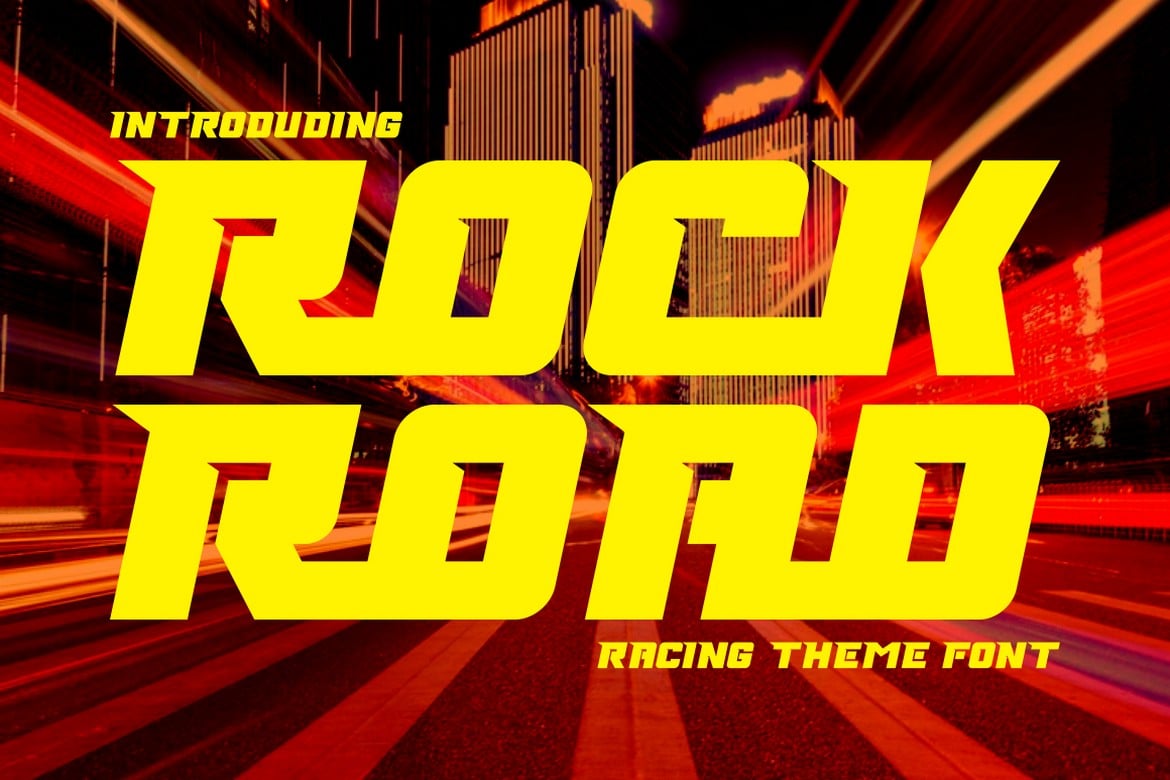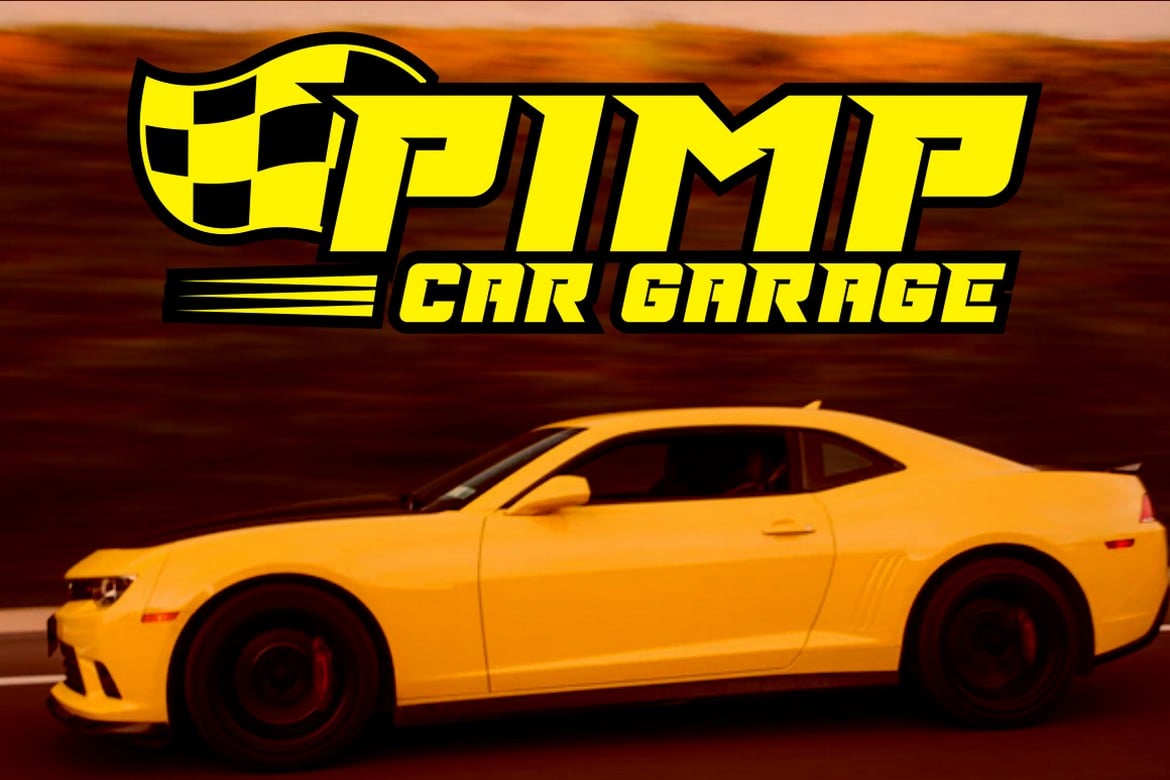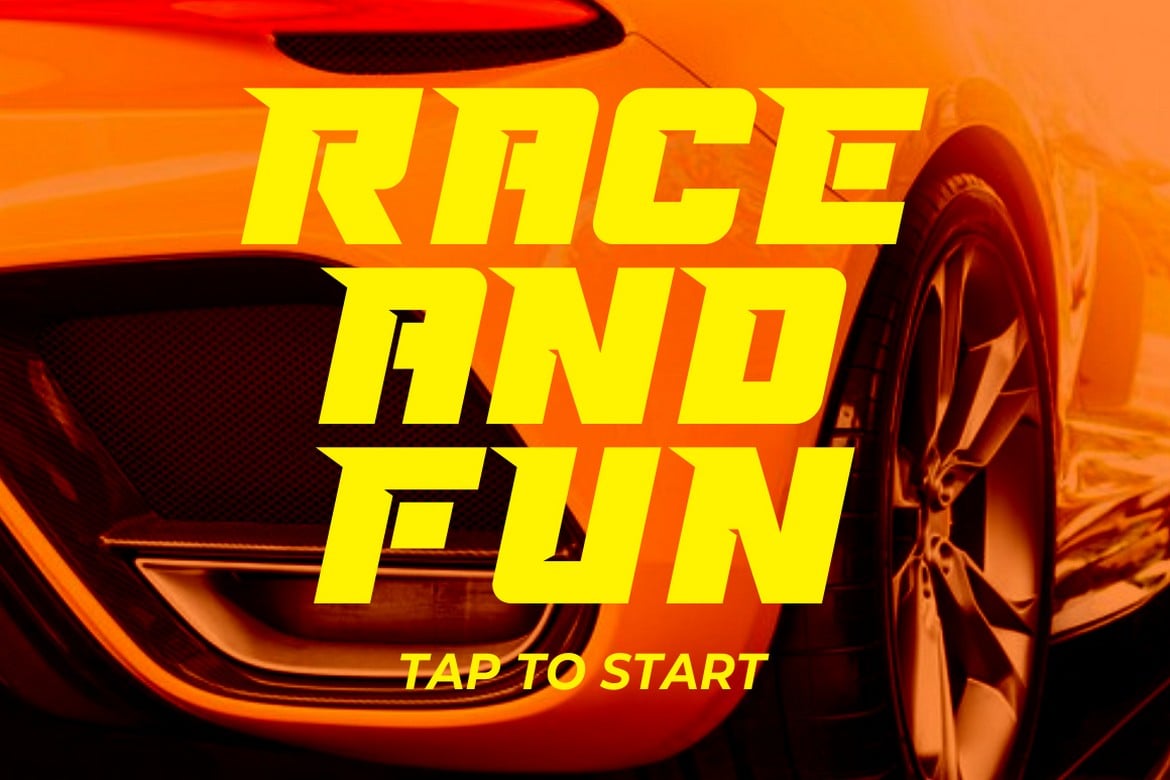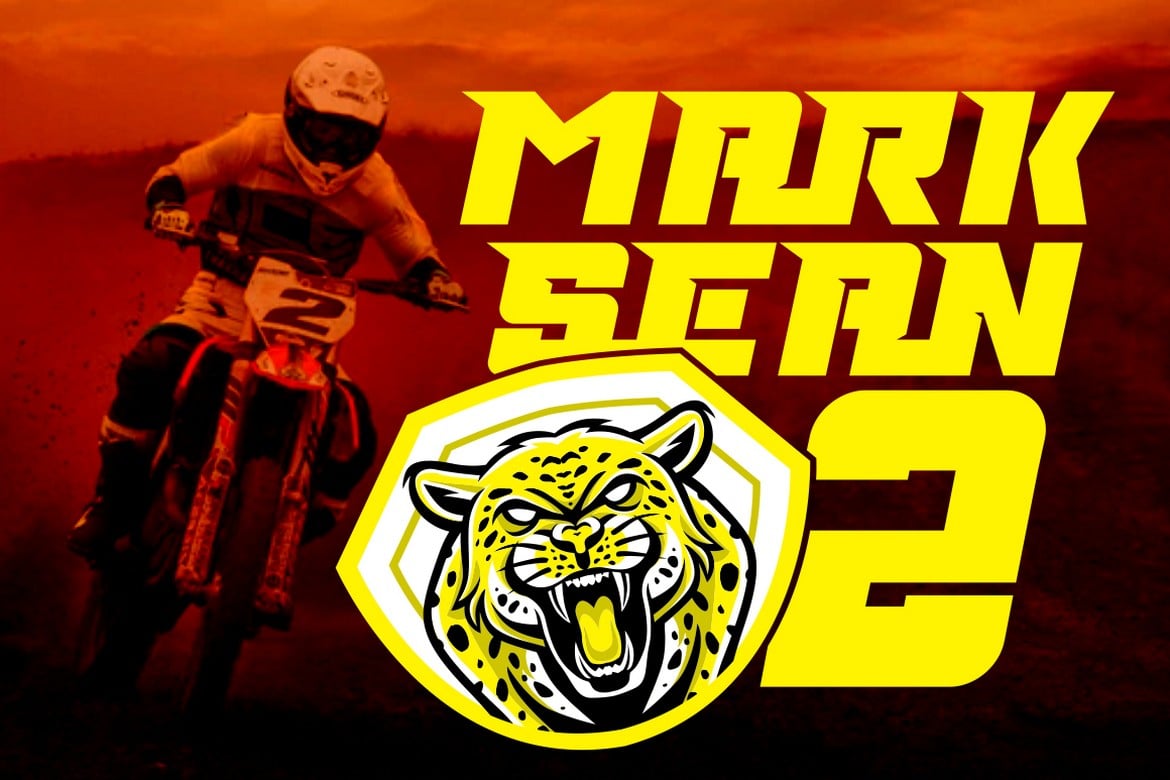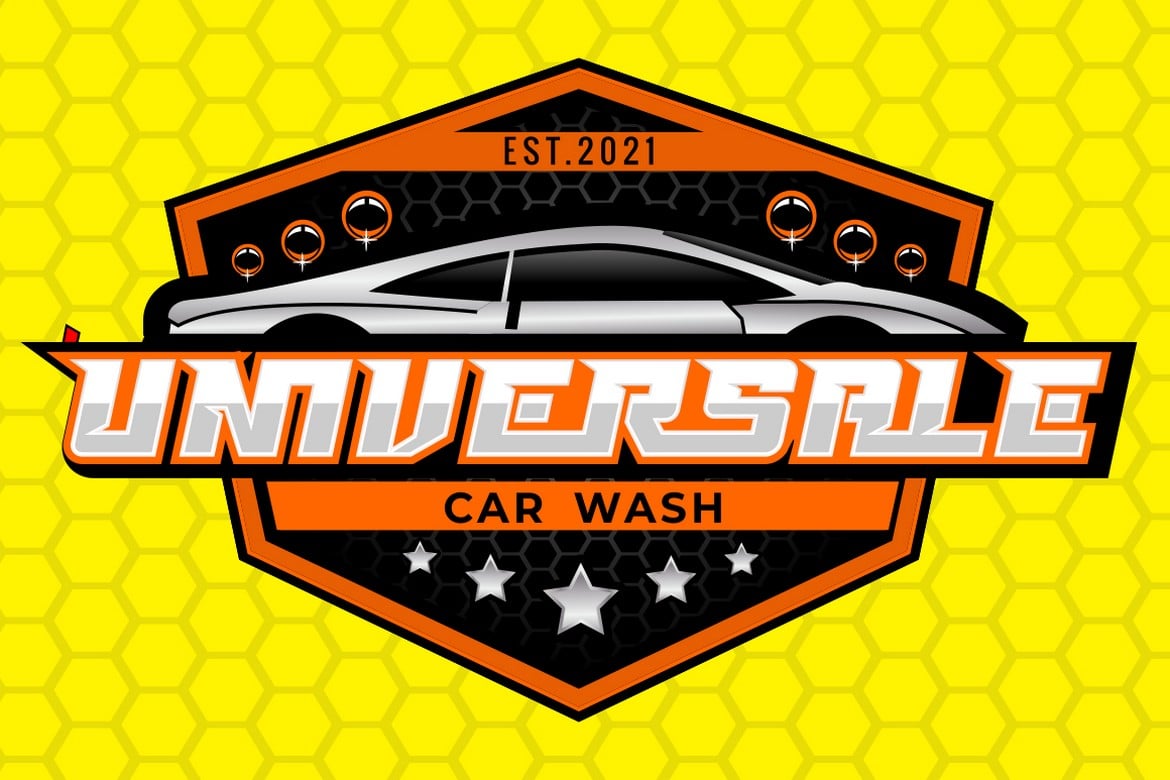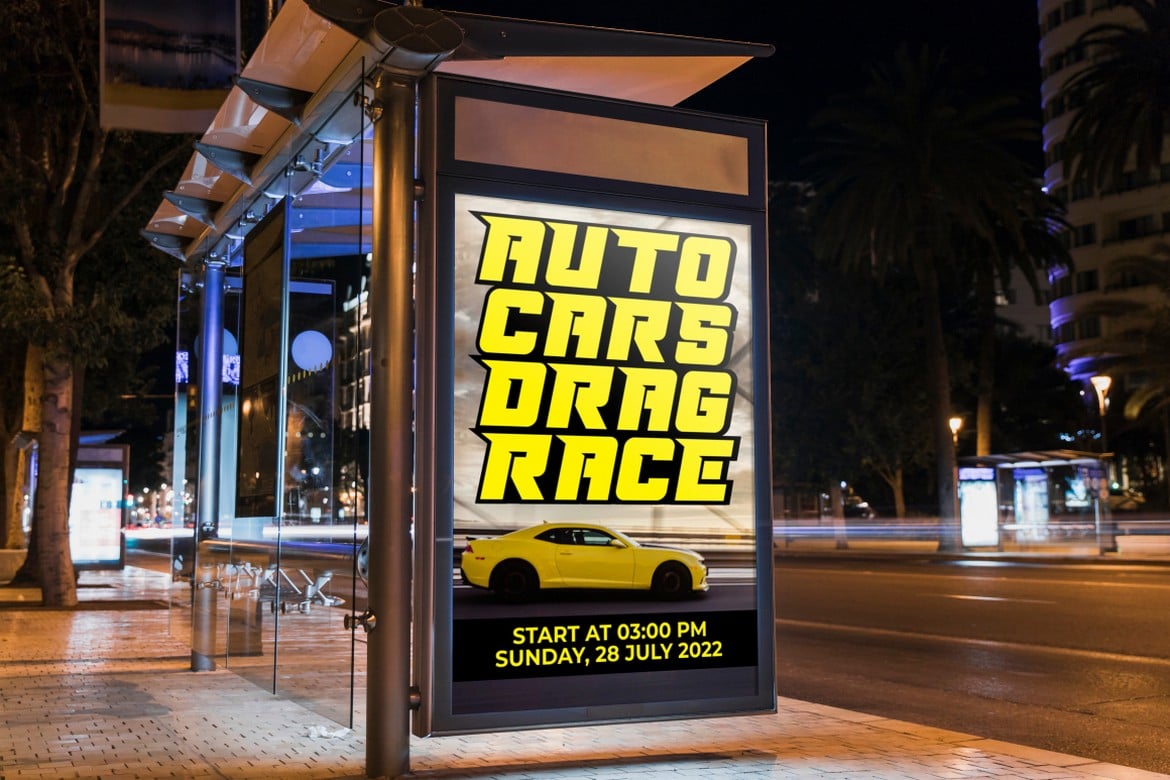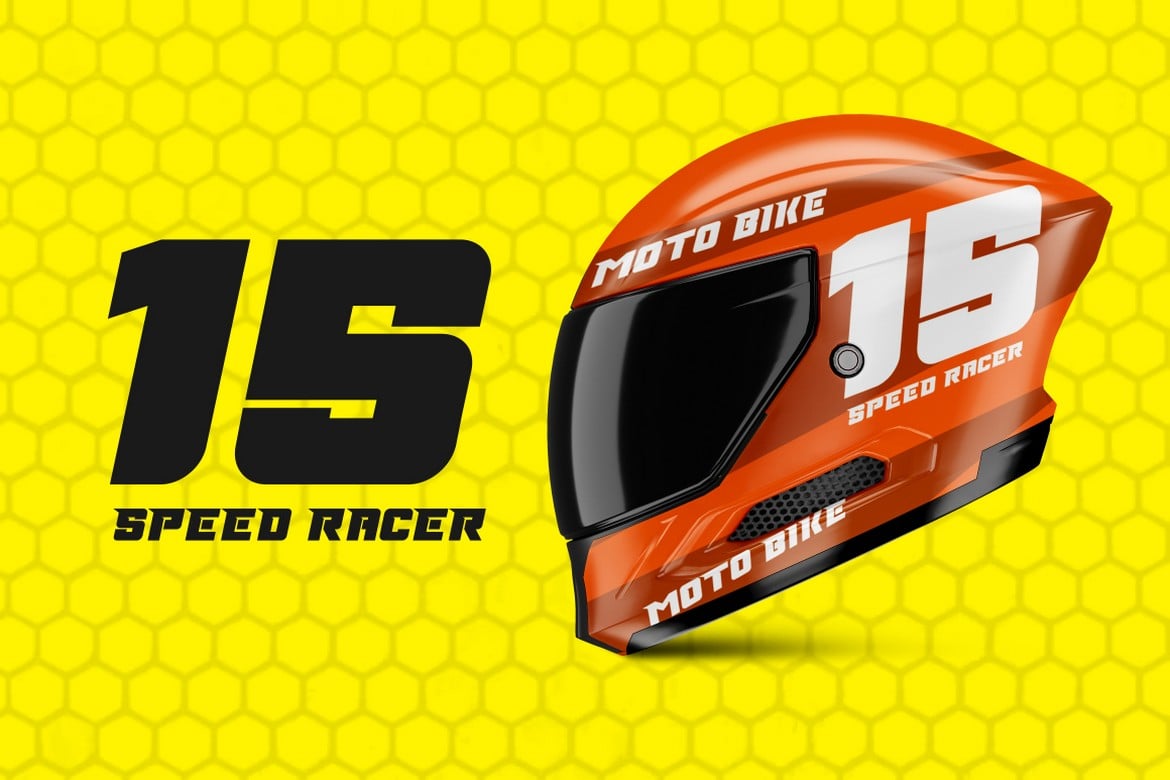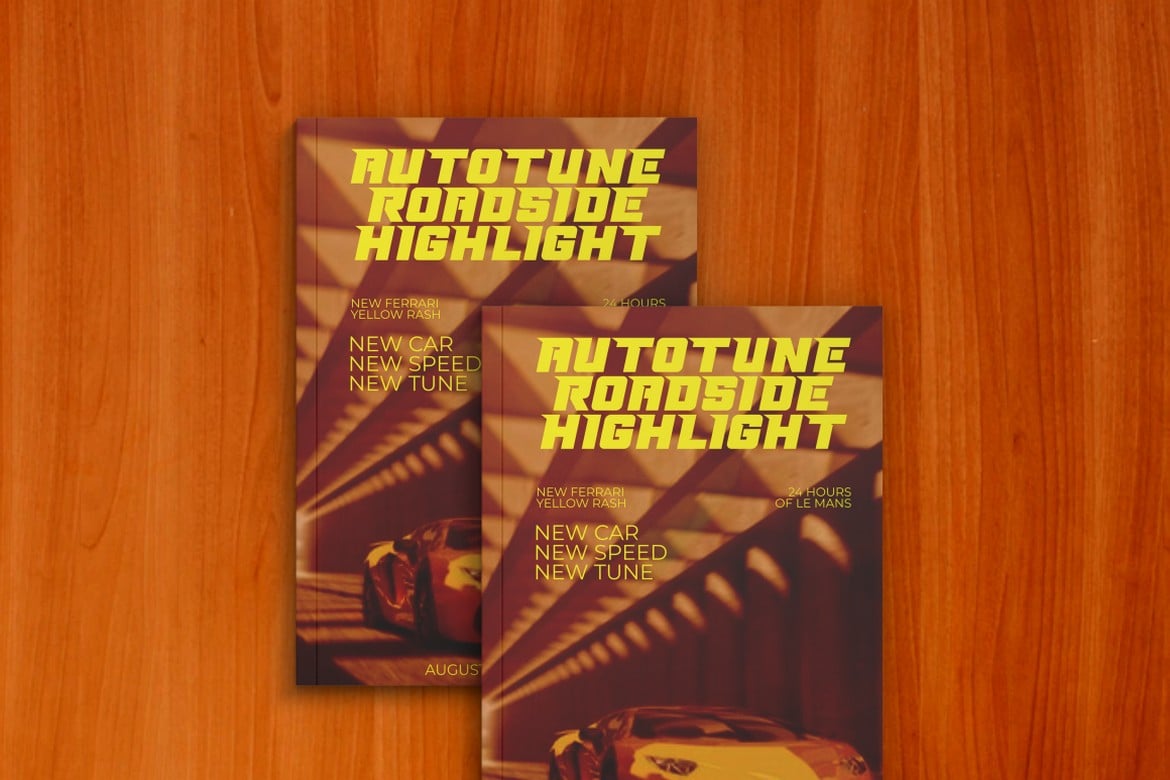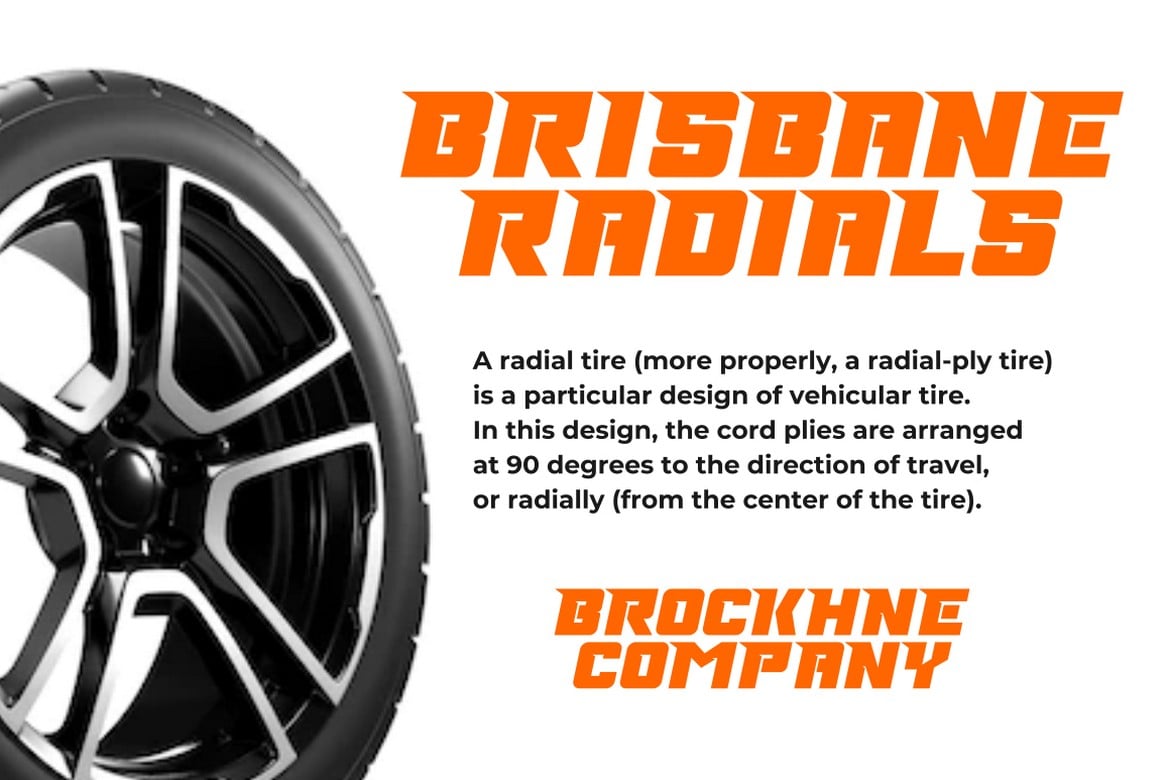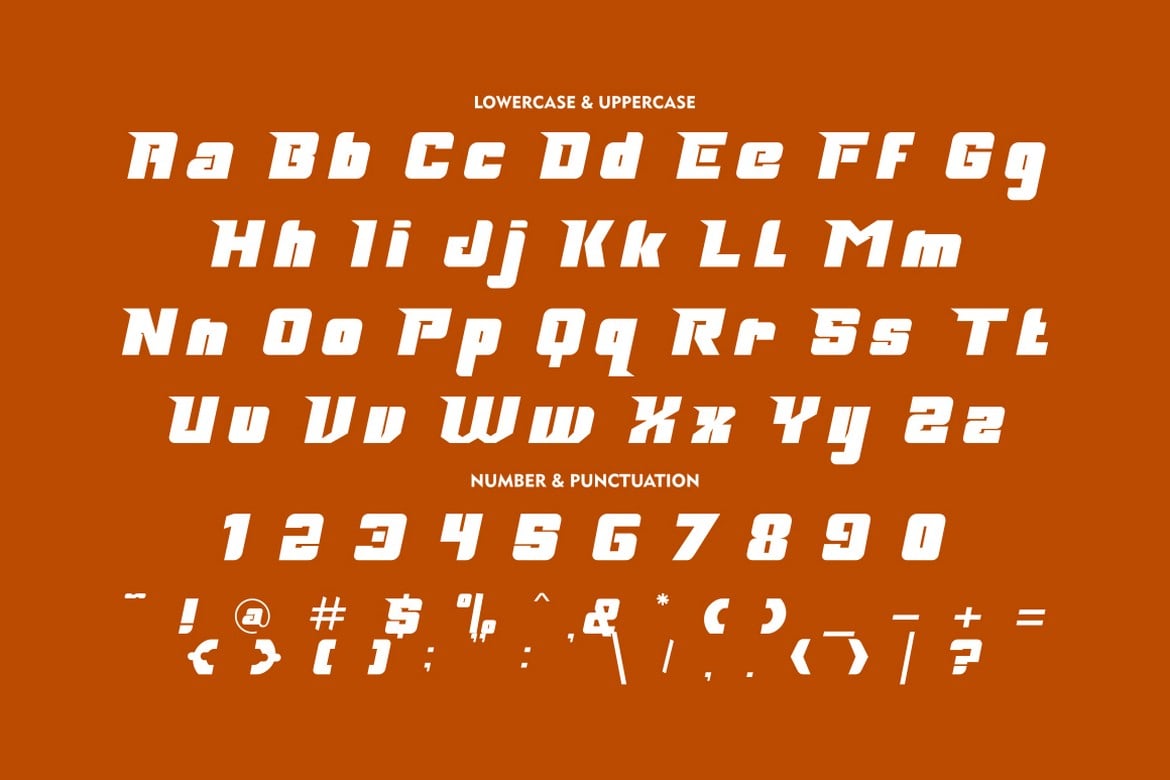
Rock Road – Racing Font
Rock Road is a racing theme font with sharp and consistent angles combined with a hard and strong style. So it looks very fast and powerful. So I made it a display font. Rock Road has an uppercase and lowercase version that doesn’t have a recing feel, so you can be more creative. In addition, Rock Road has a sans ligature feature that makes the great look.
Rock Road would be perfect for Logo, title, logotype, cover, headline, comic, cover books, cards, posters, or anything that requires a horror or scarylook!
Rock Road is also support multi language.